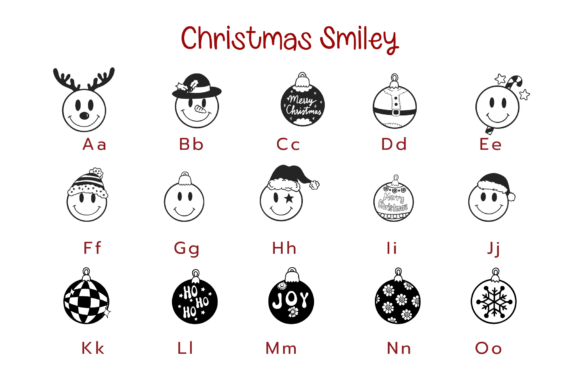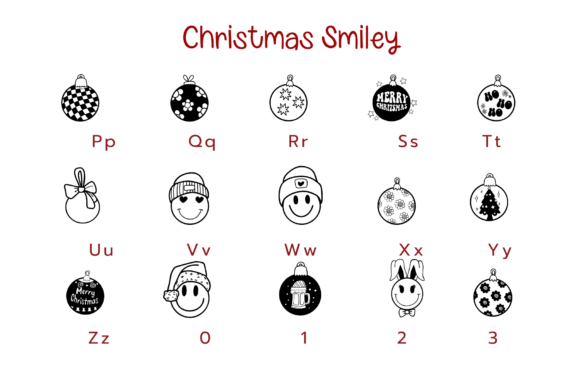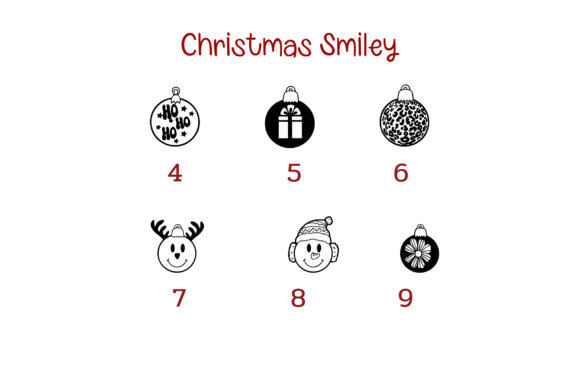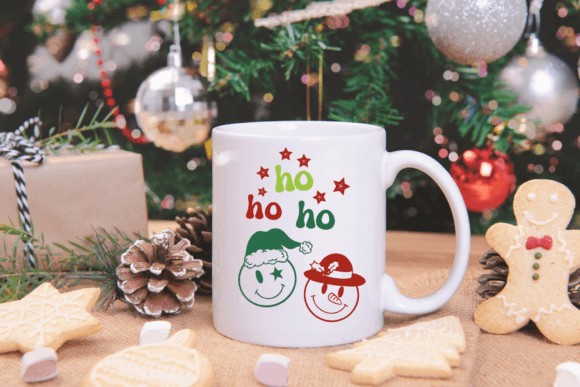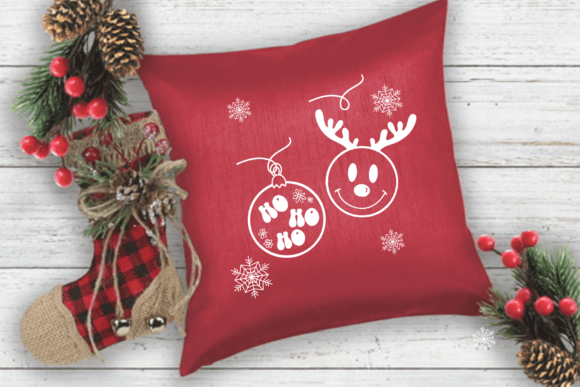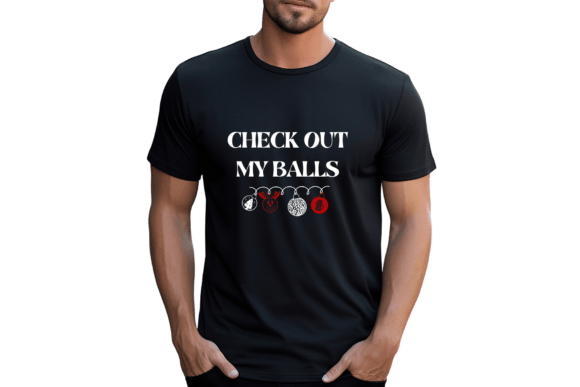
Introduction to Christmas Smiley Font
Christmas Smiley Dingbats is a cute and happy collection of festive.
It’s perfect for adding a splash of holiday color to your designs Giving a fun and quirky atmosphere to your Christmas-themed projects.
Key Features of Christmas Smiley Font